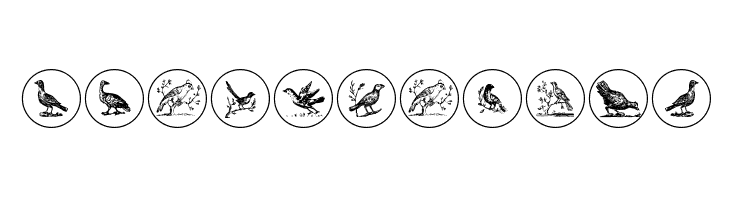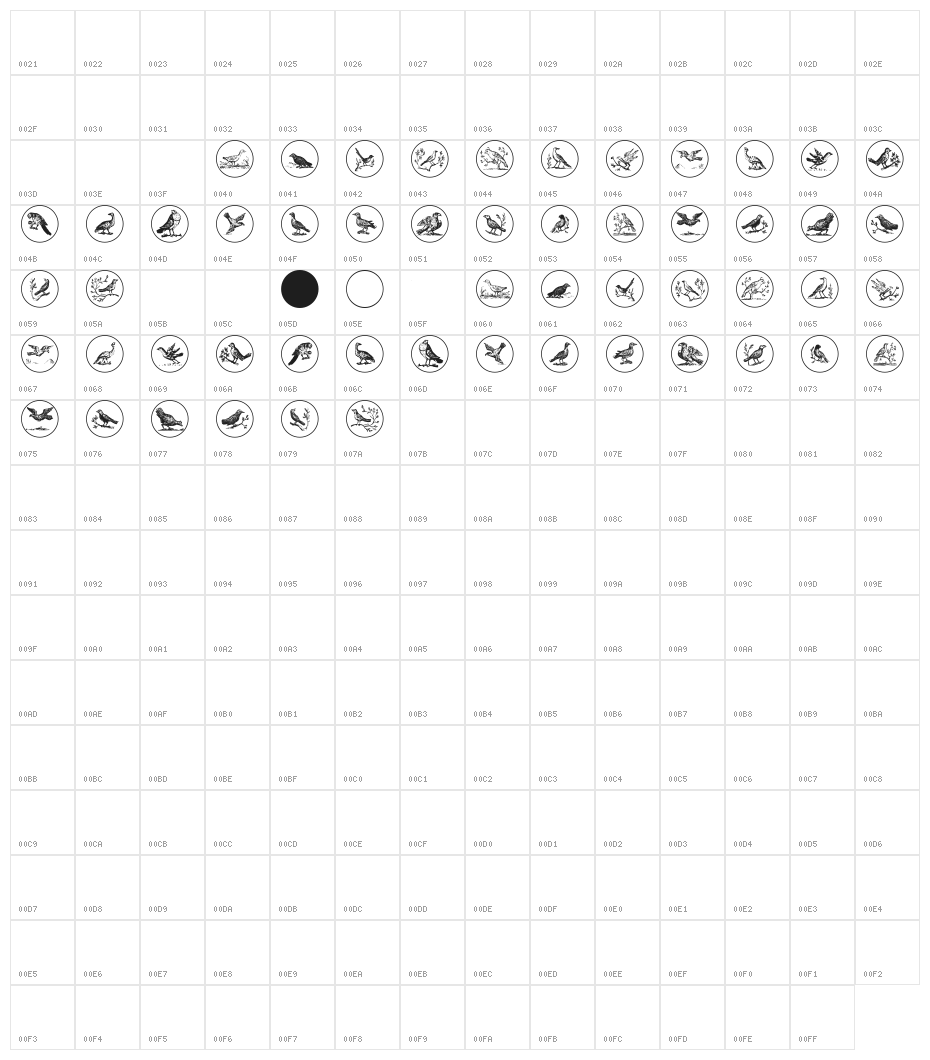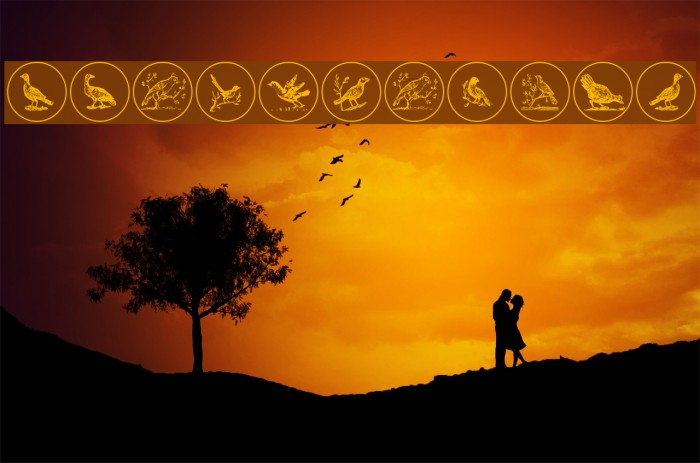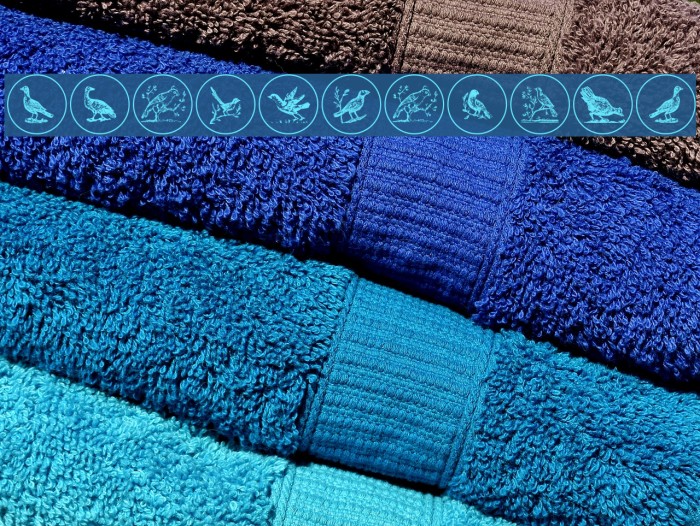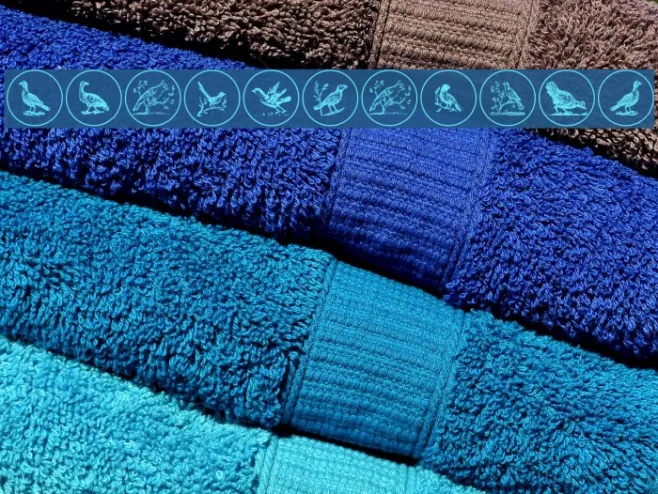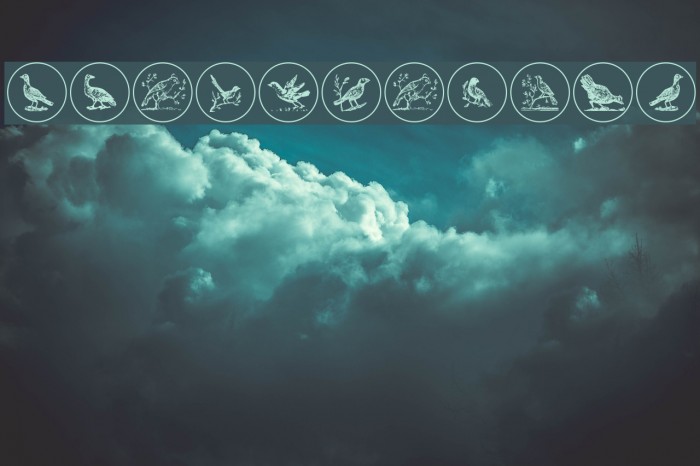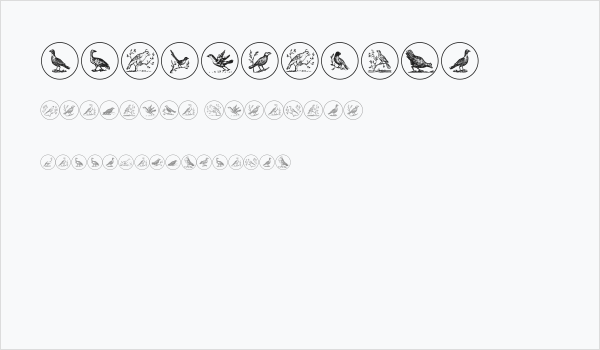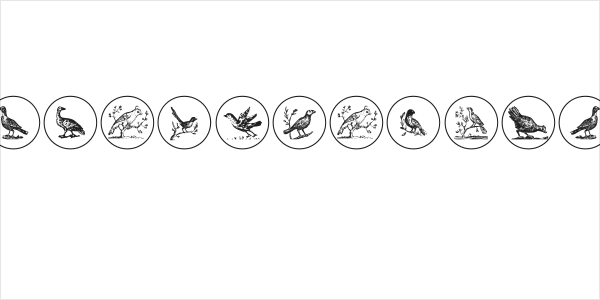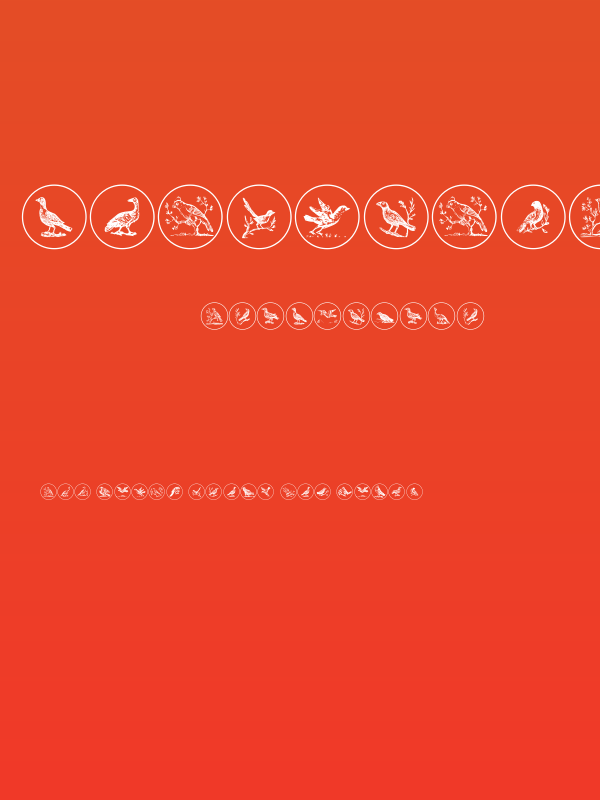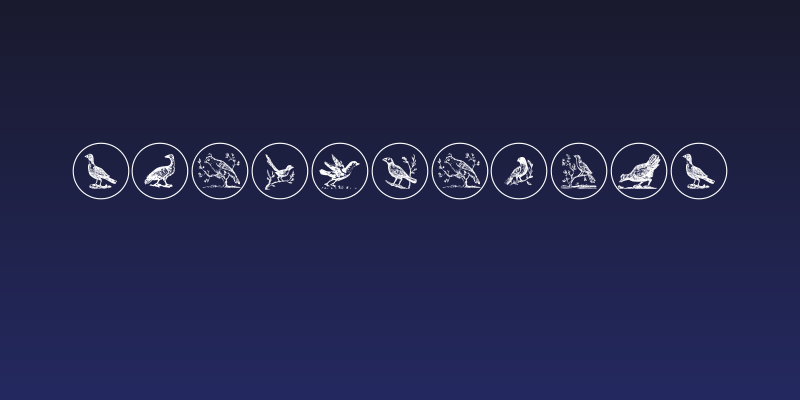
OldBirdsTwo Font
OldBirdsTwo Description
A decorative font featuring detailed, vintage-style bird illustrations inside circular borders, each representing a different character or symbol. The artwork is intricate, monochrome, and reminiscent of old naturalist engravings.
| Overall Style | Vintage, Decorative |
| Use Case | Logos, Headlines, Posters, Decorative elements |
| Proposed Projects | Nature-themed branding, educational materials, book covers, decorative initials, wildlife posters, creative invitations. |